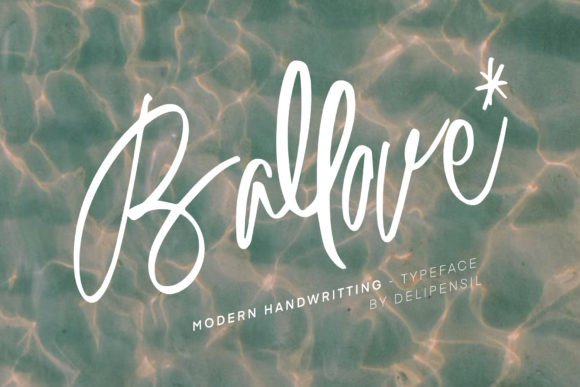
In a world where beauty and authenticity reign supreme, Ballove Font emerges as a true masterpiece, a symphony of elegance that dances across the digital canvas. Created by the visionary delipensil, this exquisite script font embodies the essence of modern handwriting, capturing the raw emotion and individuality of the human touch.
Journey into the realm of Ballove Font, where each character is meticulously crafted, reflecting the artistry of a skilled calligrapher. Its graceful strokes and flowing lines evoke a sense of timeless romance, adding a touch of enchantment to your creative endeavors. Whether you're a designer, an artist, or simply a lover of typography, Ballove Font holds the power to transform your words into breathtaking expressions of art.
Step into a world where your imagination knows no bounds. With Ballove Font, you possess a versatile tool that adapts seamlessly to a myriad of creative projects. From branding and logo design to quotes and merchandise, this font becomes your trusted companion, elevating your work to new heights of sophistication. Its PUA encoding grants you effortless access to an array of glyphs and ligatures, empowering you to unleash your creativity without limits.
Embrace the allure of Ballove Font, a font that speaks to the heart and captivates the eyes. Its modern handwriting style breathes life into your designs, adding a personal touch that resonates with your audience. With Ballove Font, you have the power to create designs that touch souls and leave an indelible mark on the world.